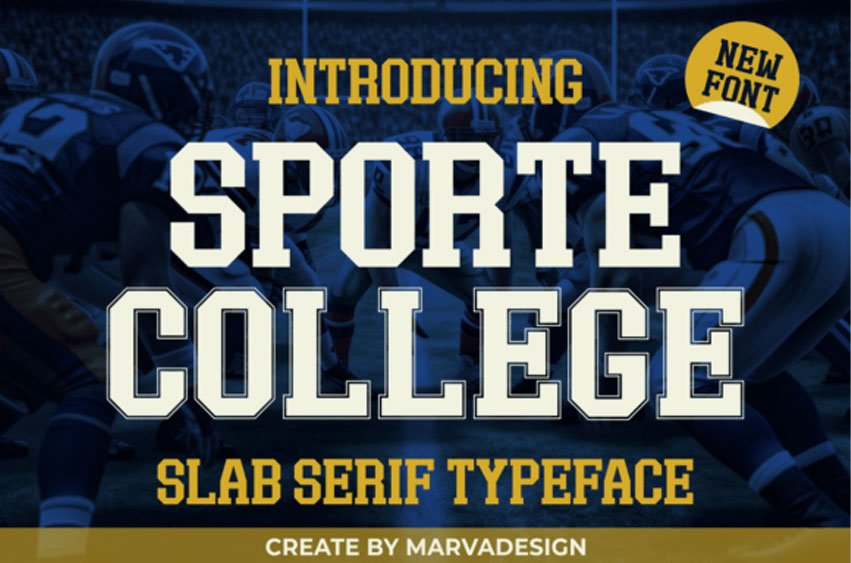
Sporte College Font is a bold and stylish font with thick, blocky letters that have a traditional feel.
Its design is inspired by old-school athletic fonts often seen on sports jerseys and college logos. Perfect for creating a strong and classic look in your projects.